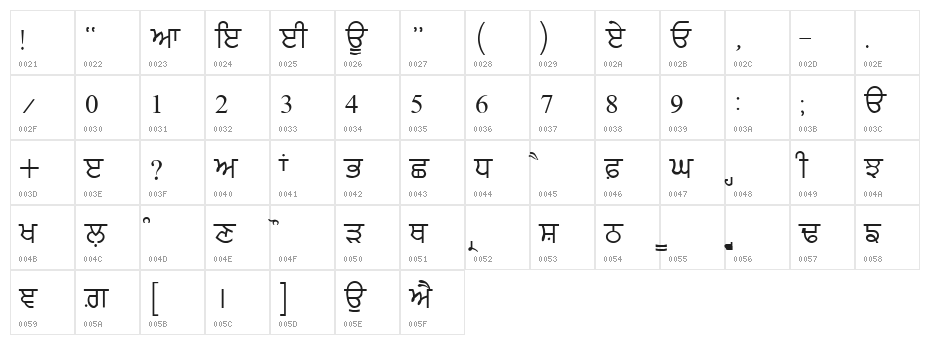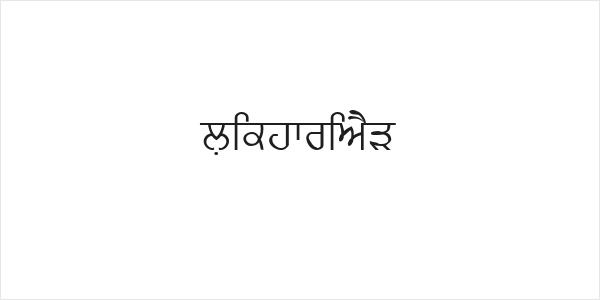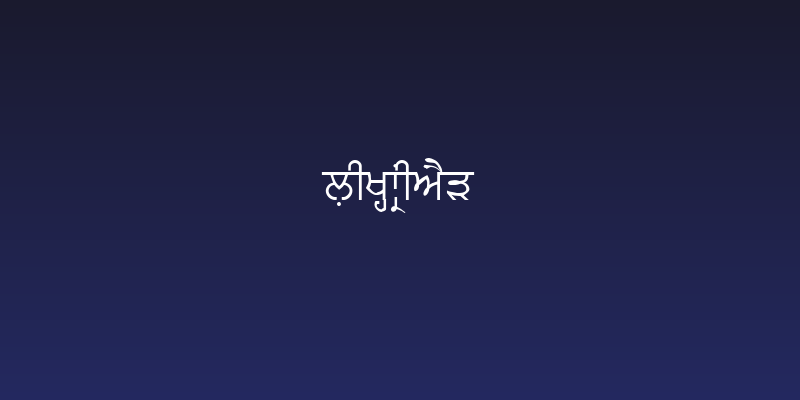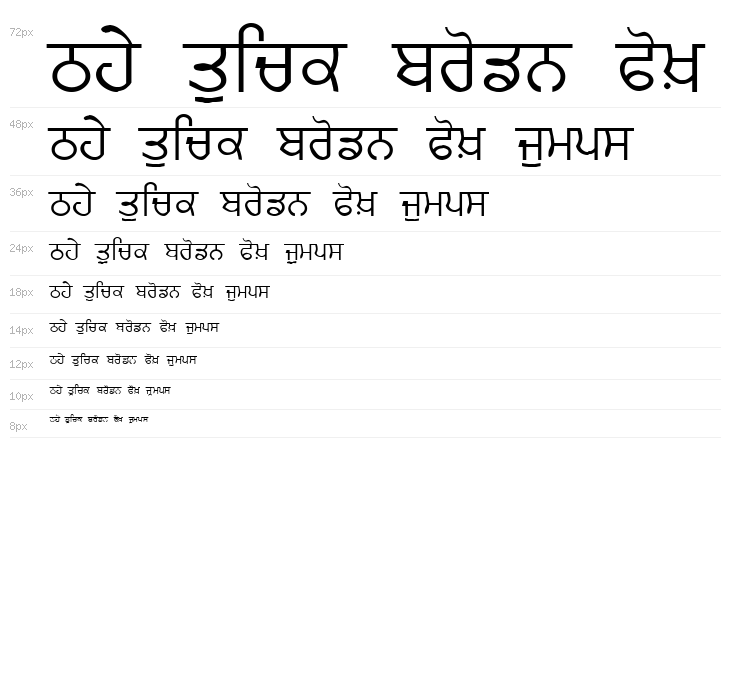
Likhari_P Font
Likhari_P Description
This font features a distinctive and elegant design with a blend of traditional and modern elements. The characters are crafted with a unique flair, incorporating both sharp and rounded edges that create a harmonious balance. The numerals are clear and well-defined, making them easily readable. Special characters are thoughtfully designed to complement the overall aesthetic. The font maintains a consistent line weight, providing a uniform appearance across all characters. Its style is both sophisticated and approachable, making it suitable for a variety of applications.